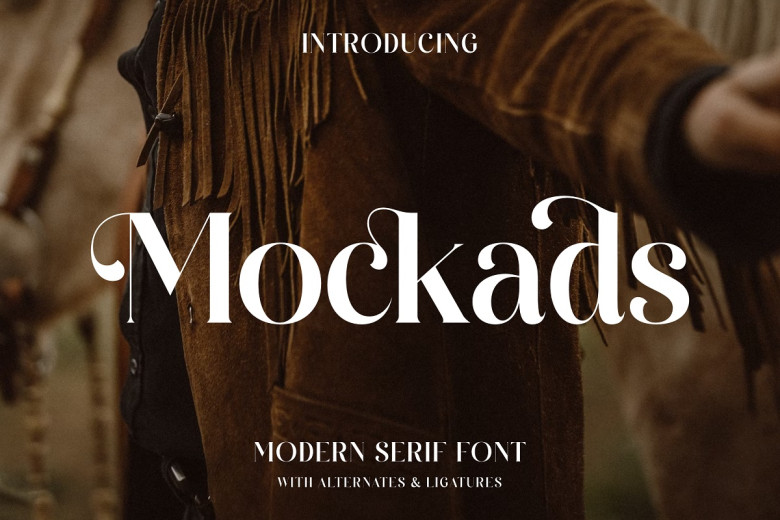
Mockads Font
Mockads has an elegant and modern style. As a classic serif Font, this typeface can be used for luxurious logos, book or movie titles, T-shirts, clothing magazines, letters and quotes.
Mockads Serif Font